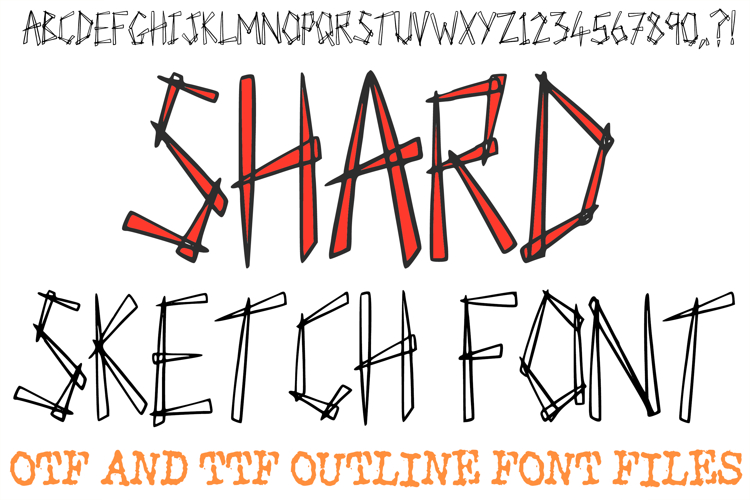
The Shard Sketch Font is a high-energy, geometric display typeface that reimagines the alphabet as a series of overlapping glass fragments and sharp architectural lines. Featuring a "double-sketched" outline and angular silhouettes, this font is a perfect choice for edgy streetwear branding, tech-focused editorial layouts, modern gallery posters, and high-impact digital art.
Each character is meticulously designed with a raw, artisan feel, blending thin linear strokes with bold geometric intersections that create a sense of movement and digital distortion. Whether you are a designer crafting a contemporary logo or an artist looking for a "glitch-style" hand-drawn aesthetic, the Shard Sketch Font delivers a sharp, avant-garde look to any creative project.
Abstract Geometric Aesthetic: Every letter (A–Z) and number (0–9) is built from intersecting shards, providing a unique, fragmented look that standard fonts cannot replicate.
Dynamic Linework: The "scribbled" overlapping lines add texture and a sense of hand-drawn urgency to your headlines.
Versatile Alphanumeric Set: Includes a full range of uppercase letters, numbers, and sharp, stylized punctuation like geometric question marks and exclamation points.
Modern & Edgy: The minimalist black-and-white linework makes it ideal for architectural overlays, edgy fashion labels, and futuristic branding.